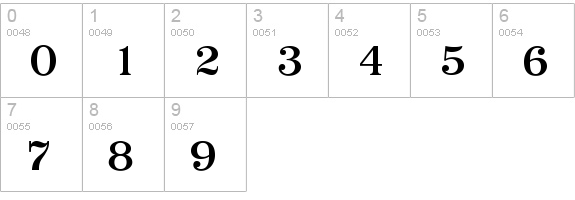
Priamos-Medium is a balanced, medium-weight variant in the Priamos typeface family \xE2\x80\x94 well suited to sub-headlines, navigation, and balanced editorial work.
Priamos-Medium is a versatile and elegant font that exudes sophistication and style. With its clean lines and balanced proportions, this font is perfect for a wide range of design projects, from branding to editorial design. The timeless appeal of Priamos-Medium makes it a go-to choice for designers looking to add a touch of class to their work. And the best part? Priamos-Medium is available for free download at FontsMarket.com. With just a few clicks, you can add this stunning font to your collection and start using it in your projects right away. Don't miss out on the opportunity to elevate your designs with Priamos-Medium - download it for free today!